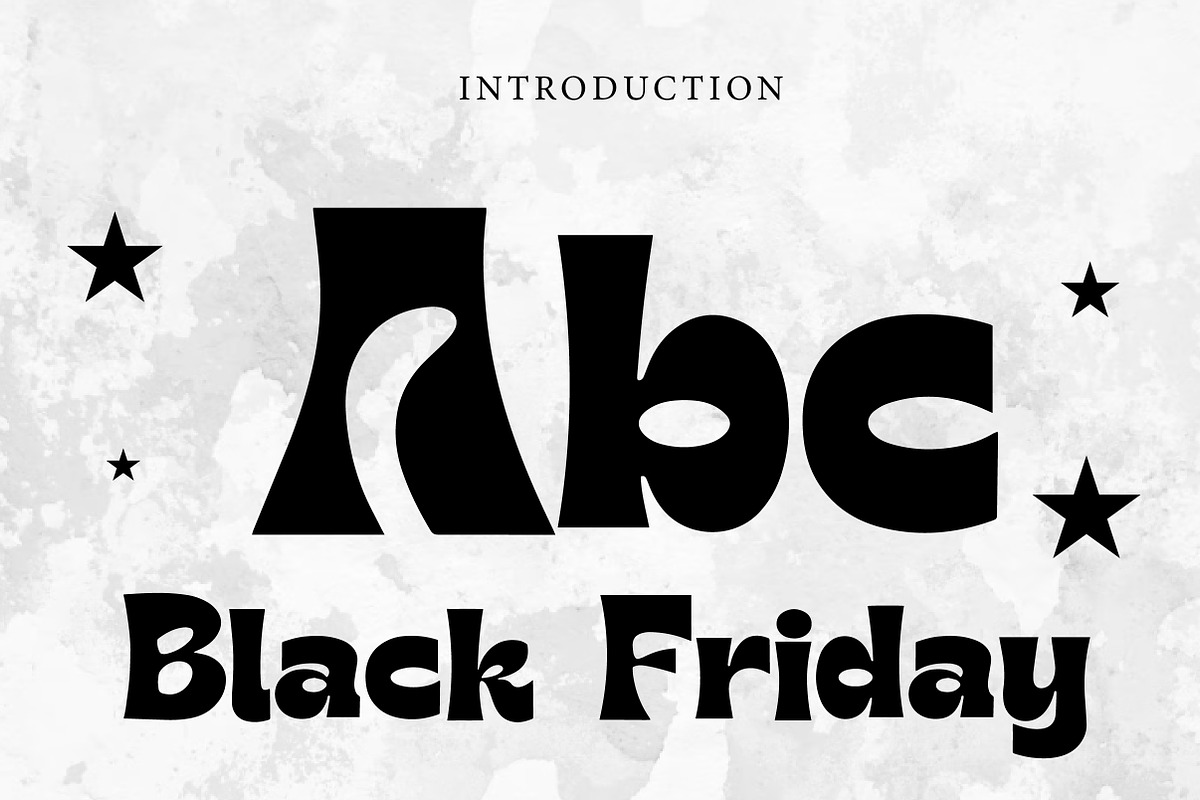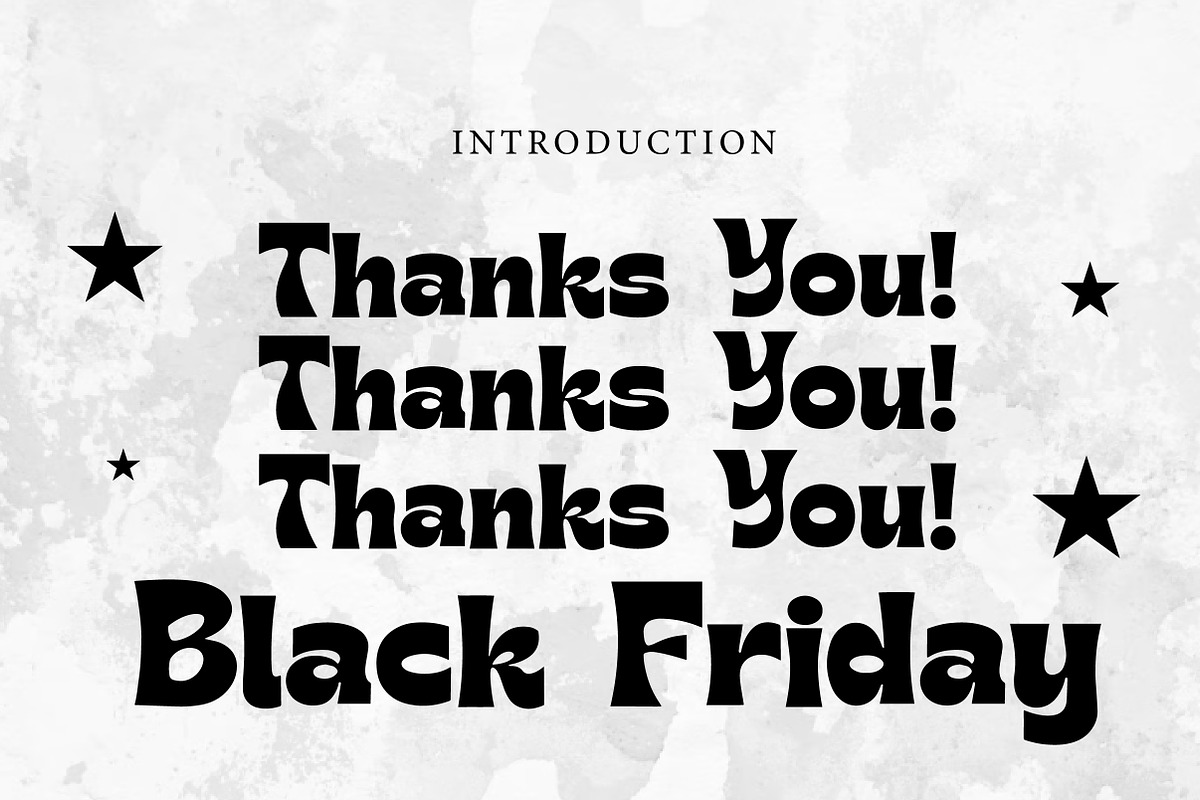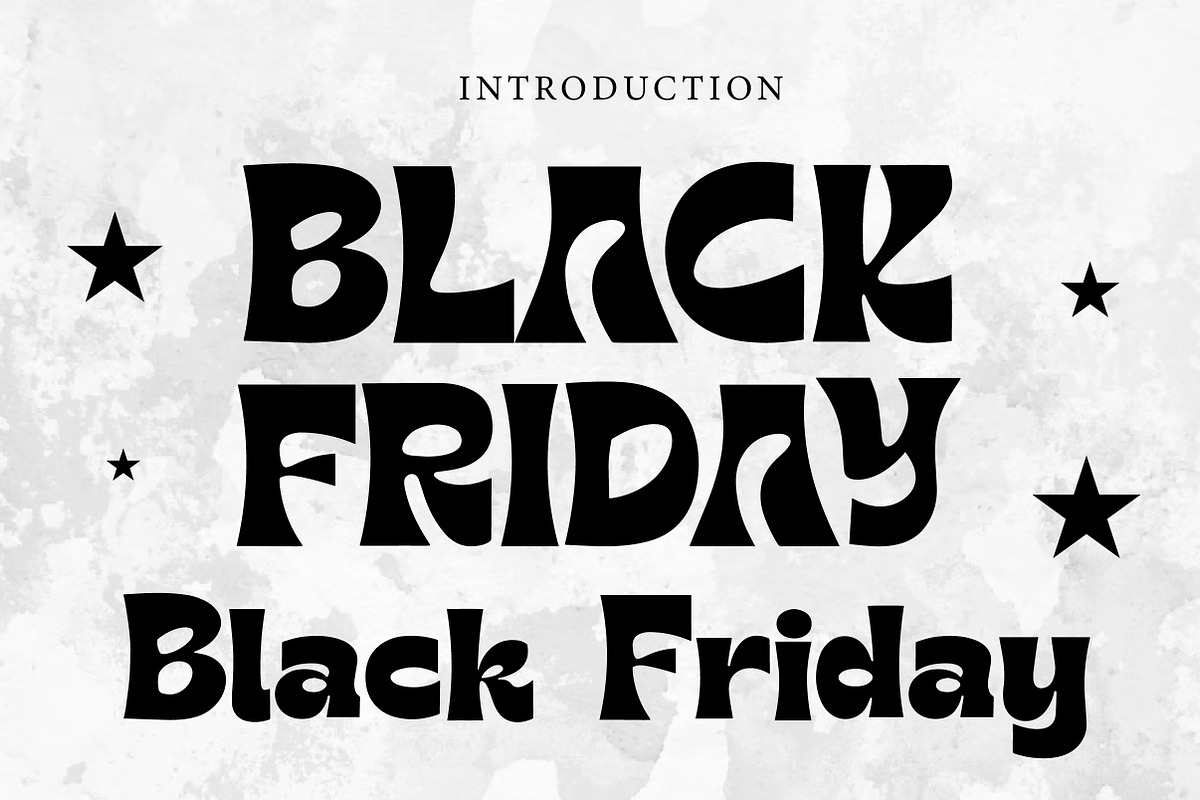
Black Friday
Black Friday is a bold and impactful display font designed to grab attention instantly. With its thick strokes, sharp curves, and slightly irregular forms, this typeface delivers a strong commercial and promotional feel that is perfect for high-impact designs.
The font’s heavy structure and dynamic personality make it ideal for sale banners, promotional graphics, posters, branding, logos, and social media campaigns. Its expressive style adds urgency and excitement, making it especially suitable for seasonal events, discount campaigns, and marketing materials.
Black Friday combines a modern bold aesthetic with a slightly playful edge, ensuring your designs stand out and communicate energy, power, and urgency effectively.
Sale Promotions
Black Friday Campaigns
Posters & Flyers
Social Media Ads
Branding & Logos
E-commerce Graphics
Marketing Banners
Bold Headlines